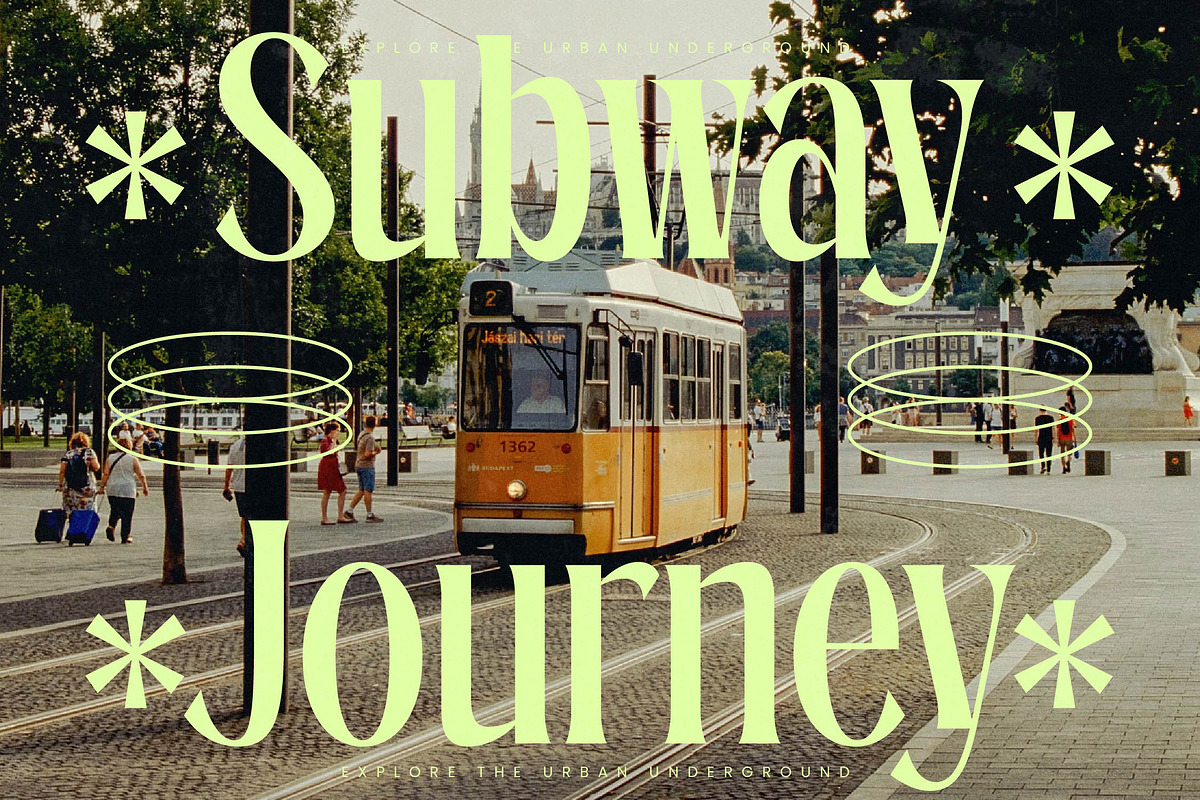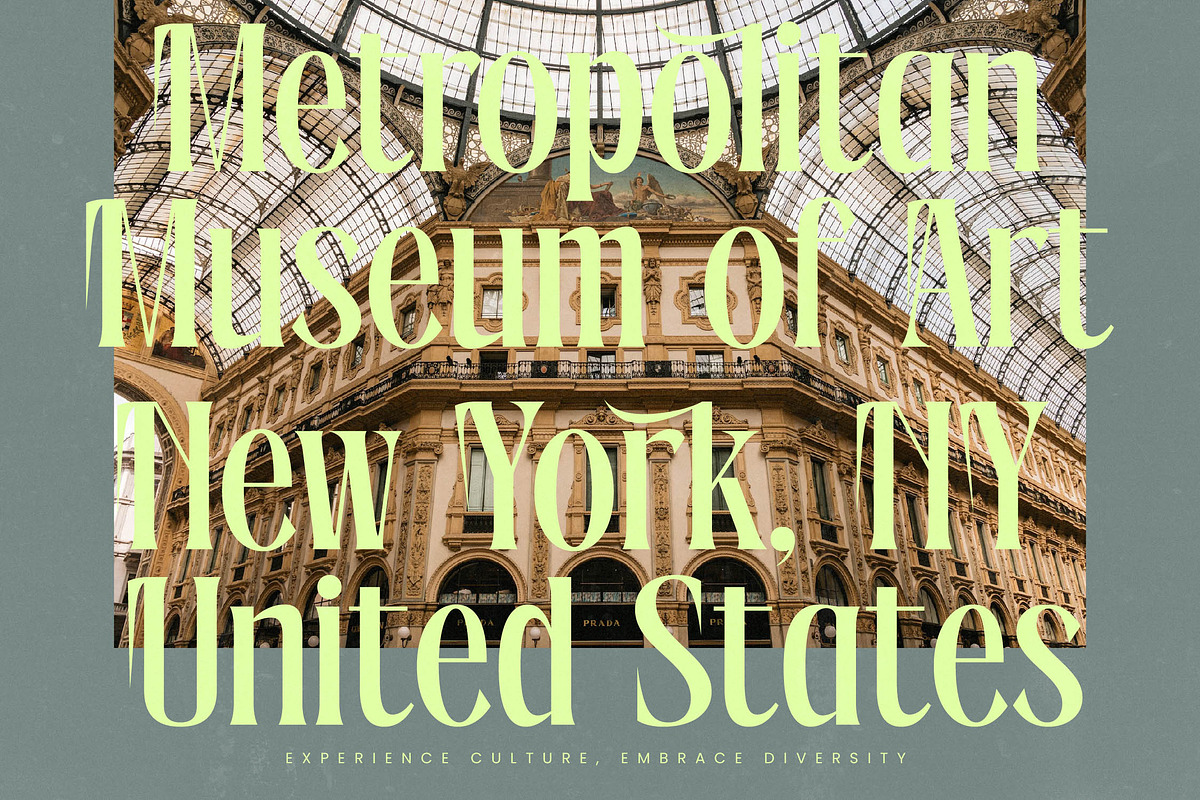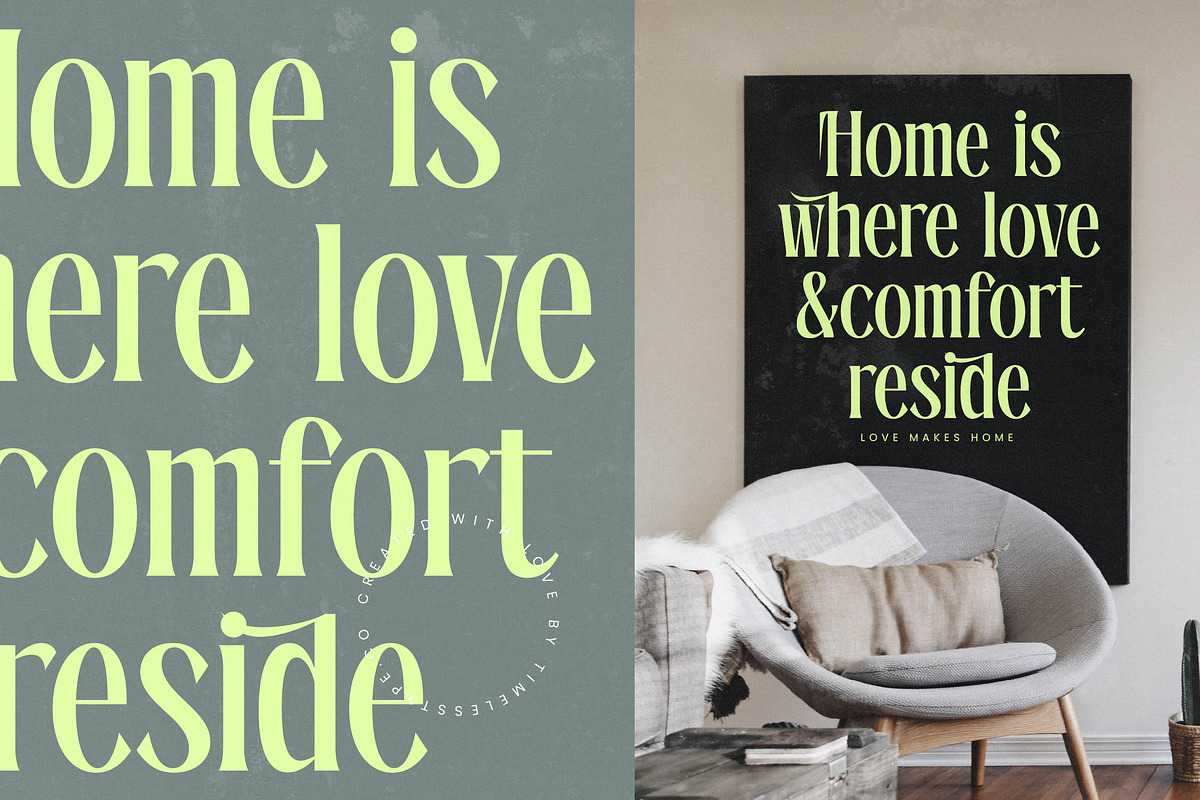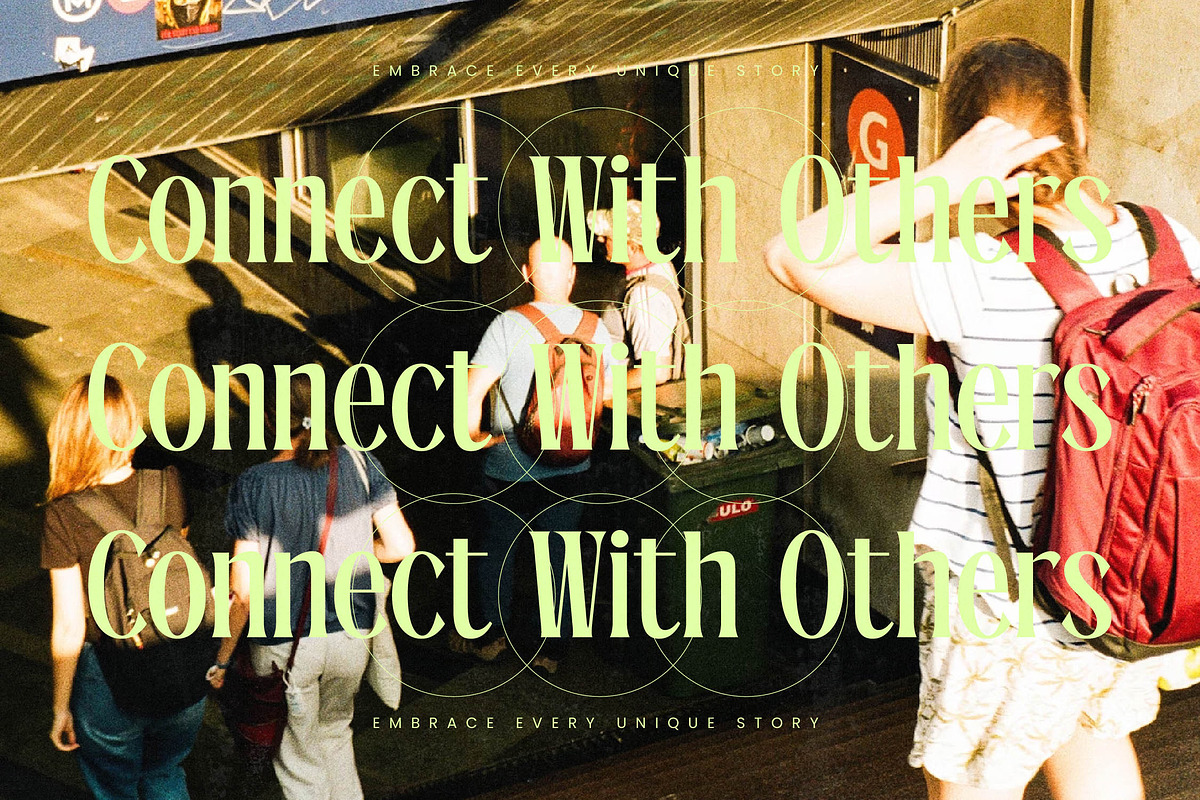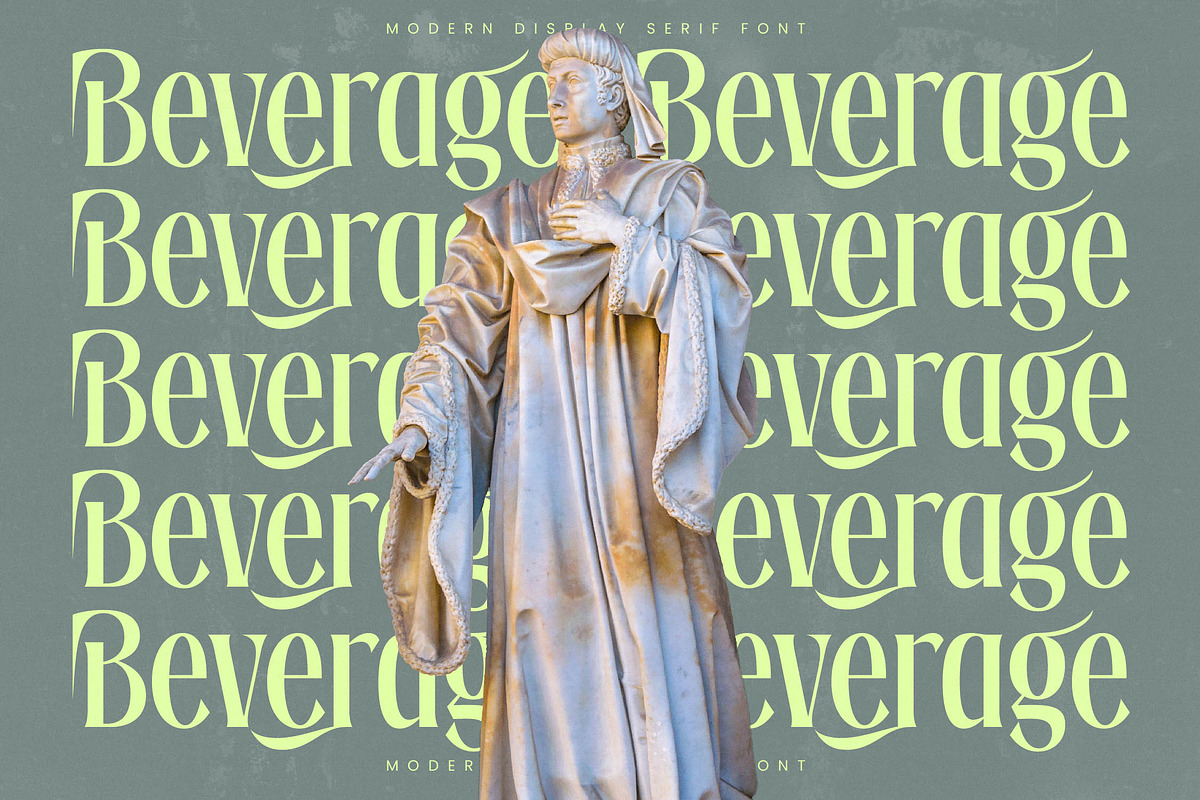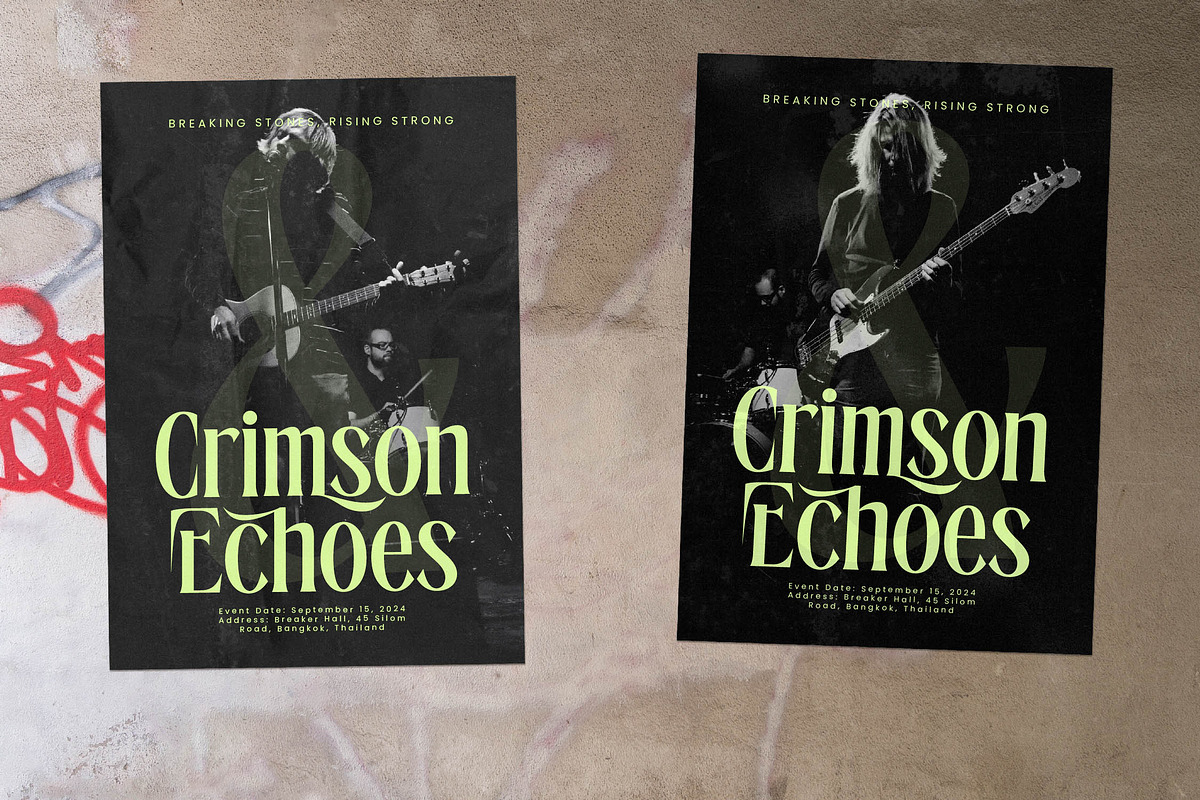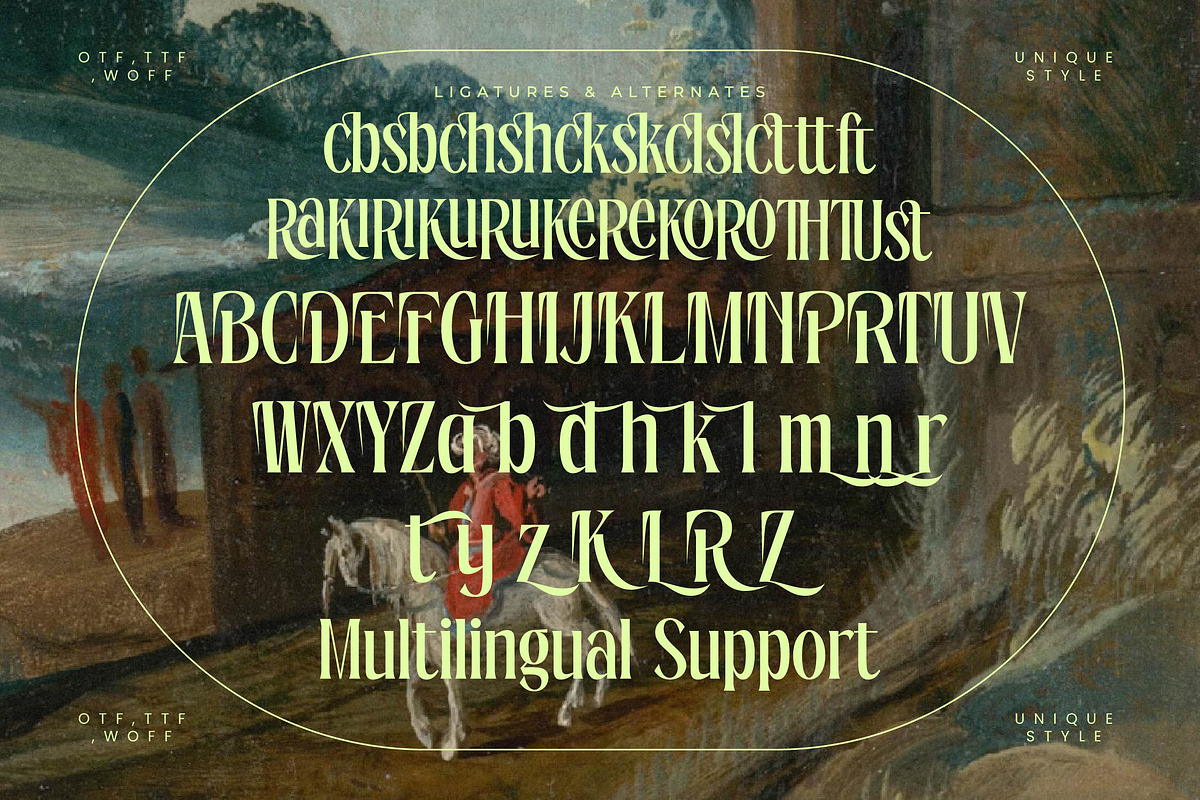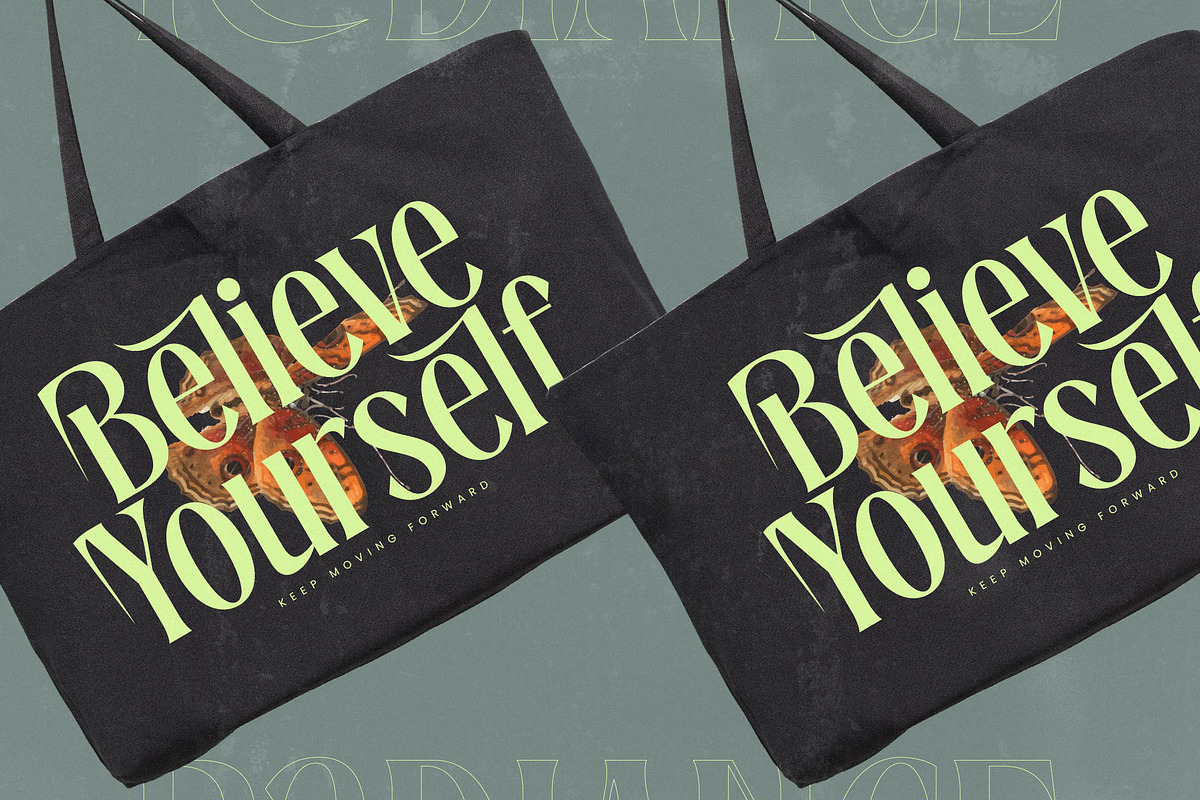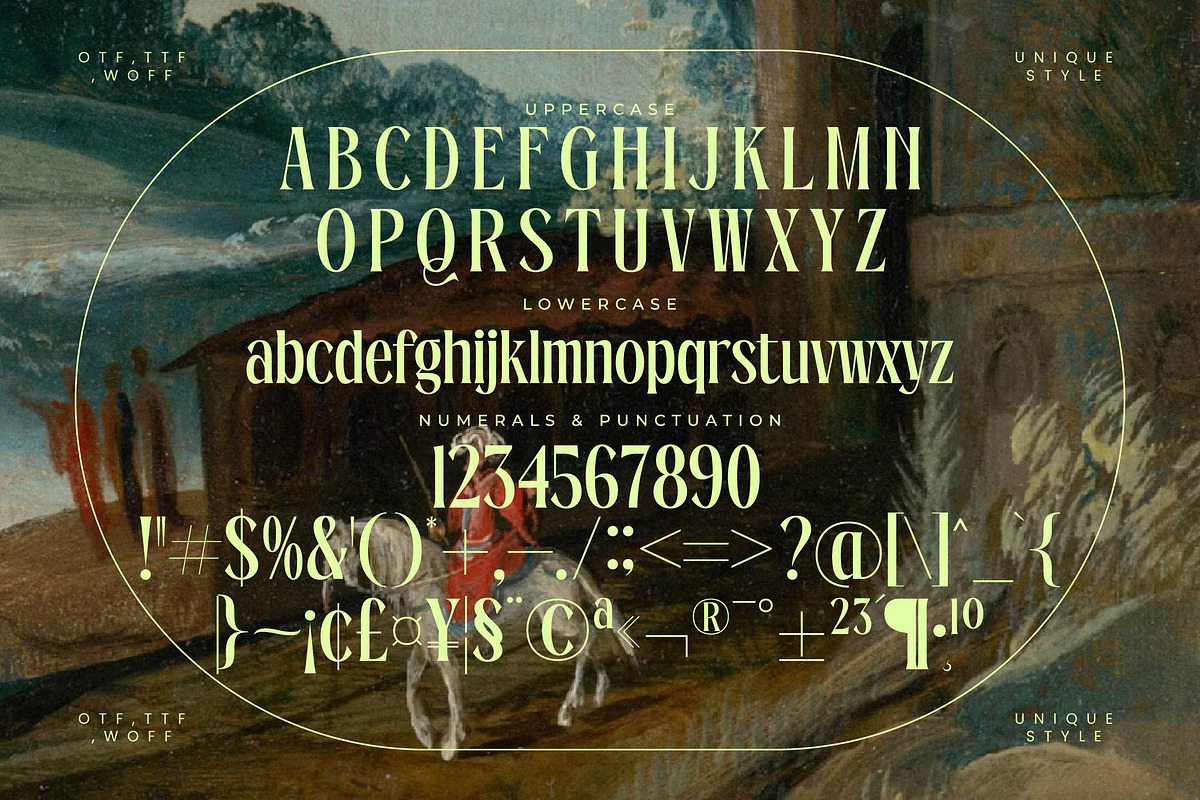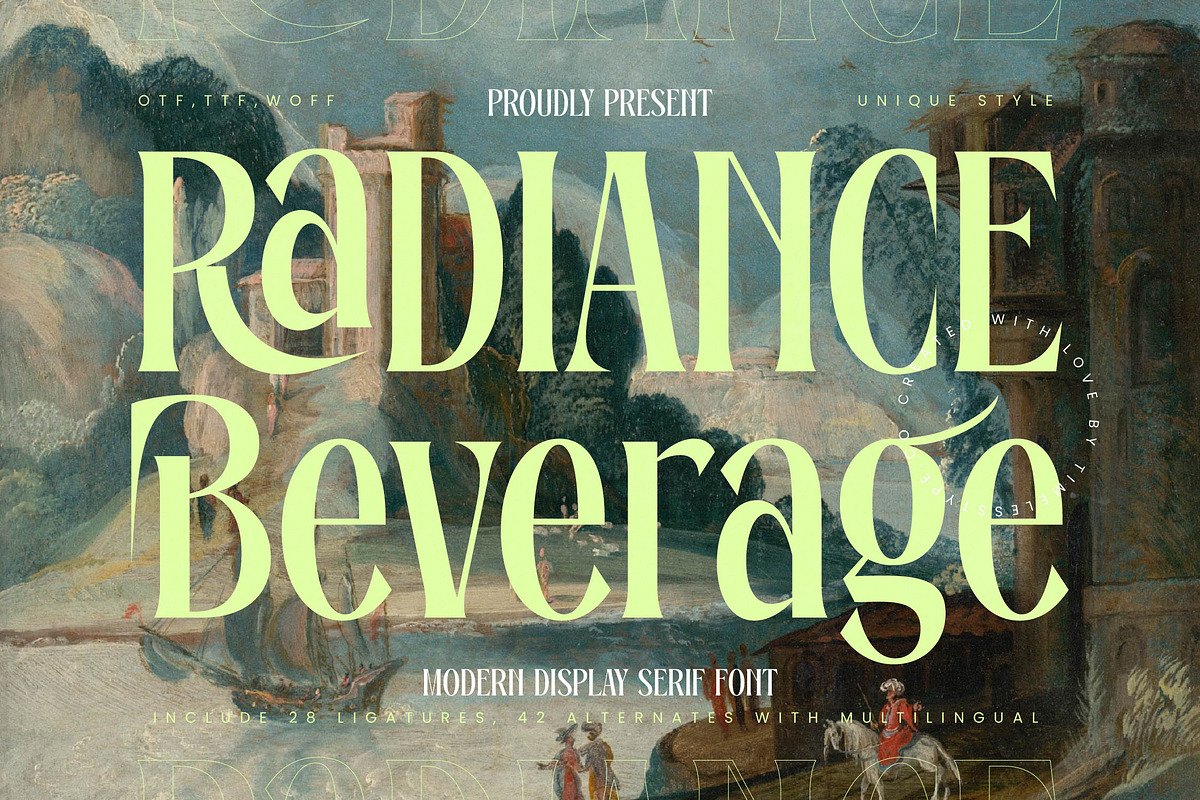
Radiance Beverage Modern Serif
Indulge in the sophisticated allure of Radiance Beverage, a typeface designed to evoke the timeless elegance of a vintage masterpiece reimagined for the modern era. This font captures the essence of high-end design with every curve and sharp edge, making it an essential tool for creators seeking a touch of class.
Drawing inspiration from classical oil paintings and the refined aesthetic of European heritage, this font bridges the gap between old-world artistry and contemporary clean lines. It carries the weight of history while floating effortlessly within the minimalist layouts of today's digital landscape.
Experience the ultimate modern serif display that commands attention through its luxury typography and breathtaking high-contrast serif details. Every letter is crafted to provide a significant branding impact, serving as a premium editorial font that speaks volumes without saying a word.
Embracing the current modern serif trend, this typeface is a perfect example of editorial display fonts that prioritize personality and uniqueness. It stands at the forefront of character-driven typography, offering a distinctive voice that separates your work from the generic and predictable.
This versatile tool is a dream for logo design and high-end branding projects that require a sophisticated touch. Whether you are working on prestigious editorial layouts, premium product packaging, romantic wedding stationery, or avant-garde fashion magazines, this font delivers unparalleled grace.
Elevate your creative workflow with an extensive suite of ligatures and unique alternates that allow for endless customization and flair. The inclusion of decorative swashes and full multilingual support ensures that your message reaches a global audience with international characters for seamless communication.
- Ligature 28 Alternate 42